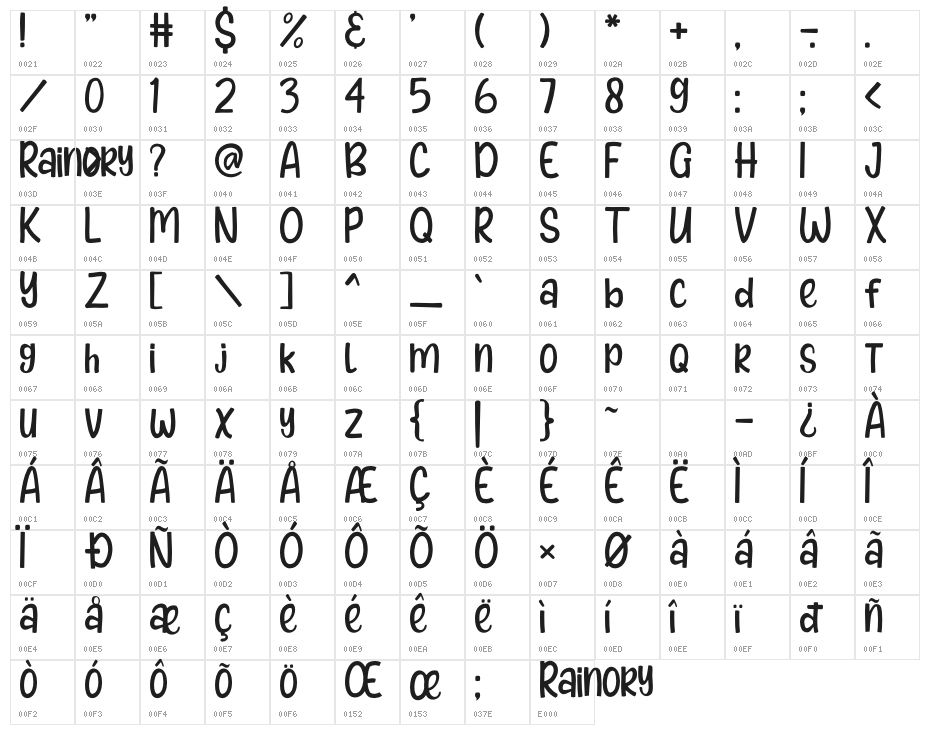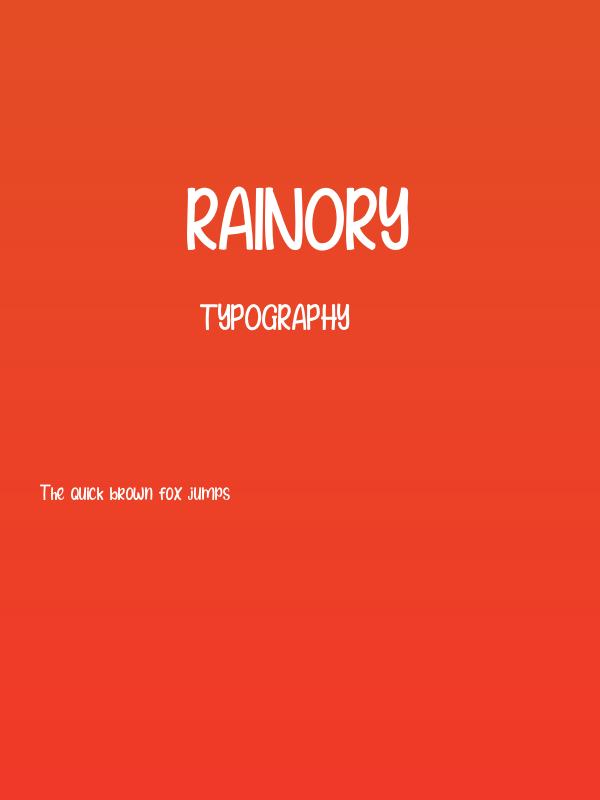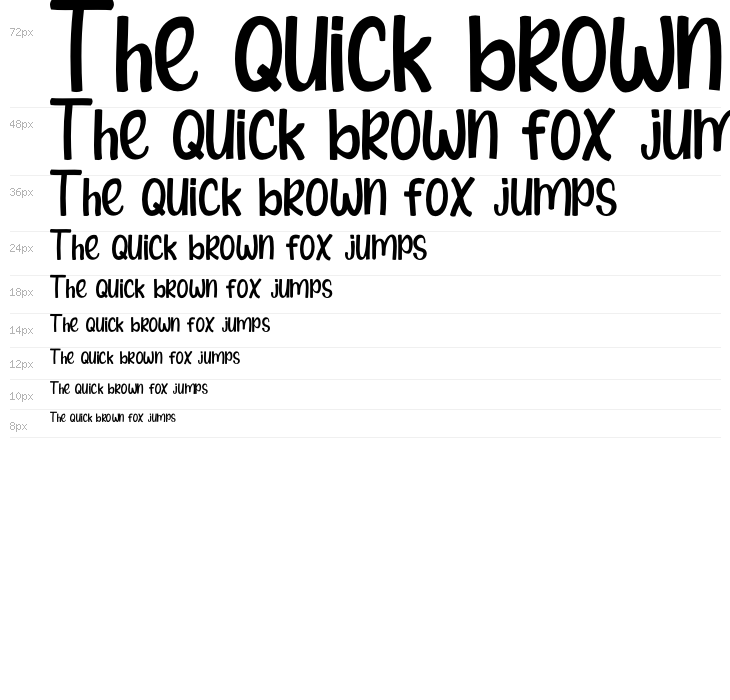
Rainory Font
Rainory Description
This playful and bold font features a handwritten style with a casual and friendly appearance. The letters are rounded and slightly irregular, giving it a whimsical and approachable feel. The uppercase and lowercase letters maintain a consistent style, with a slight slant that adds to its informal charm. The numbers and special characters are equally bold and maintain the same playful aesthetic, making it suitable for a variety of creative projects. The strokes are thick and uniform, providing a strong visual impact.
| Proposed Projects | Ideal for children's books, playful branding, greeting cards, and creative posters. |